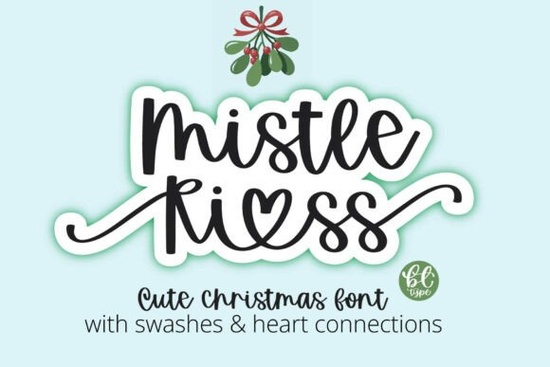
If you're looking for a handwritten Christmas font that feels warm, personal, and just a little bit whimsical, Mistle Kiss is worth a closer look. Designed with holiday cheer in mind, this script font blends casual charm with elegant details like beginning and ending swashes, smooth tails, and playful heart-shaped letter connections. It’s especially handy if you want to add a festive but understated touch to greeting cards, gift tags, or seasonal branding without going over the top.
What makes Mistle Kiss work well for holiday projects?
Unlike bold or overly decorative holiday fonts, Mistle Kiss keeps things light and readable while still feeling special. Its cursive style mimics natural handwriting, which helps your designs feel more human and less “mass-produced.” That’s a big plus if you’re creating items like:
- Custom holiday mugs or tote bags
- Printable advent calendars or ornament labels
- Social media graphics for small businesses
- Personalized wrapping paper or gift tags
The font includes a full set of uppercase and lowercase letters (A–Z), so you can mix cases for visual interest. The subtle heart connections between certain letters add a sweet, romantic flair perfect for couples’ gifts or cozy winter themes.
How does it compare to other script fonts for the holidays?
If you’ve browsed Creative Fabrica’s holiday font collection, you might have come across options like Weekend Santa, which leans more into playful, bouncy letterforms, or the nostalgic charm of fonts in the Farm Family Bundle. Mistle Kiss sits comfortably between those it’s not as rustic as Farm Family, nor as storybook-inspired as some Disney-style scripts. Instead, it offers a clean, modern calligraphy vibe that still says “Christmas” without relying on snowflakes or holly.
This balance makes it versatile. You could use it for a minimalist holiday logo, a heartfelt card message, or even non-Christmas winter projects like New Year’s party invites or cozy café signage in December.
Who should consider using Mistle Kiss?
Print-on-demand sellers will appreciate how well it scales whether you’re printing on a small sticker or a large poster, the strokes hold up clearly. Crafters making handmade ornaments or vinyl decals will find the swashes easy to cut with machines like Cricut or Silhouette. And small business owners running seasonal promotions can use it to create Instagram stories or email headers that feel festive but professional.
Even if you’re just designing holiday cards for friends and family, Mistle Kiss adds a personal signature-like quality that generic fonts can’t match. Plus, because it’s not overly ornate, it pairs well with simple sans-serif fonts for contrast think pairing it with something clean like Montserrat or Lato for headings and body text.
Tips for getting the most out of this font
To really let Mistle Kiss shine:
- Avoid overcrowding. Give the swashes room to breathe use generous line spacing and margins.
- Use it for short phrases. Script fonts like this work best for headlines, names, or taglines, not long paragraphs.
- Test print sizes. Very small prints (under 10pt) might lose the delicate tail details, so preview before finalizing.
- Pair with neutral colors. Cream, forest green, burgundy, or soft gold backgrounds let the font stand out without competing.